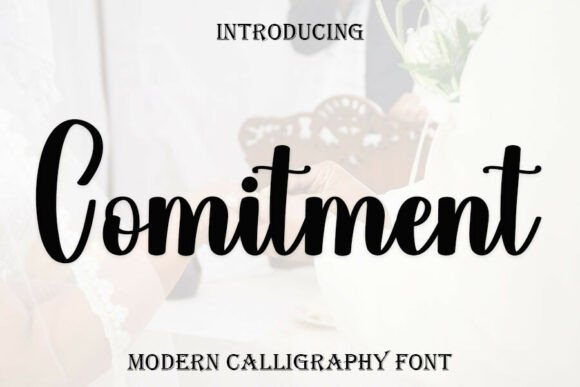
Discover the Charm of Comitment Font
Have you ever sat down with a pen and paper, and suddenly a creative spark ignites within you? The words start flowing, and before you know it, you’ve created something truly special. This feeling is what drives designers to push the boundaries of typography and explore new ways to express themselves. For those seeking a unique touch, Comitment Font is the perfect companion to bring their ideas to life.
This delicate handwritten font is carefully crafted to evoke a sense of cool and sophistication, making it ideal for writing letters, invitations, and even food product labels. With its versatility, Comitment Font can be used for titles, headings, and even body text, giving designers the freedom to experiment and create something truly one-of-a-kind.
For designers looking to add a personal touch to their work, Comitment Font is a valuable addition to any toolkit. Its unique charm and character will set your designs apart from the rest, making it a must-have for anyone seeking to make a lasting impression.
Key Features of Commitment Font
- Unique Characteristics: The font features a unique blend of modern and traditional elements, with subtle flourishes and decorative details that add a touch of sophistication to any design.
Comitment Font Review
Overall, I was quite excited to dive into Comitment Font. Here’s my honest review of what I loved and what didn’t quite work for me:
- Unique aesthetic: Comitment Font has a distinct, elegant feel that’s perfect for high-end branding and luxury projects.
- High-quality glyphs: The font’s detailed, intricate design makes it a great choice for those seeking a sophisticated look.
- Support for multiple languages: Comitment Font is designed to support a wide range of languages, making it a great option for global projects.
- Limited font weights: Compared to other fonts in its class, Comitment Font has a relatively limited selection of font weights.
- May not be ideal for body text: While Comitment Font is perfect for headings and titles, its small size and fine details can make it difficult to read in larger blocks of text.
Overall, I think Comitment Font is a solid choice for designers seeking a unique, high-end aesthetic. While it may have some limitations, its strengths make it a great option for the right projects.
Getting the Most Out of Commitment Font
To get the most out of Commitment Font, try using it in bold or italic styles to add emphasis to your text.
Commitment Font is commonly used in motivational quotes, fitness and wellness branding, and inspirational design projects.
It’s also a great choice for creating a sense of professionalism and trust in business and corporate design projects.
Alternatives to Comitment Font for Designers
Great Vibes is a modern, elegant script font that is ideal for creative projects, invitations, and branding. It has a friendly and approachable feel, making it perfect for designs that require a personal touch. Compared to Comitment Font, Great Vibes is more refined and polished, with a wider range of letterforms and ligatures.
Carolyna Pro is a sophisticated, high-end script font that is suitable for luxury brands, fine art, and high-end design projects. It features intricate details and flourishes, making it perfect for designs that require a touch of elegance and sophistication. Compared to Comitment Font, Carolyna Pro is more refined and precise, with a greater emphasis on craftsmanship and attention to detail.